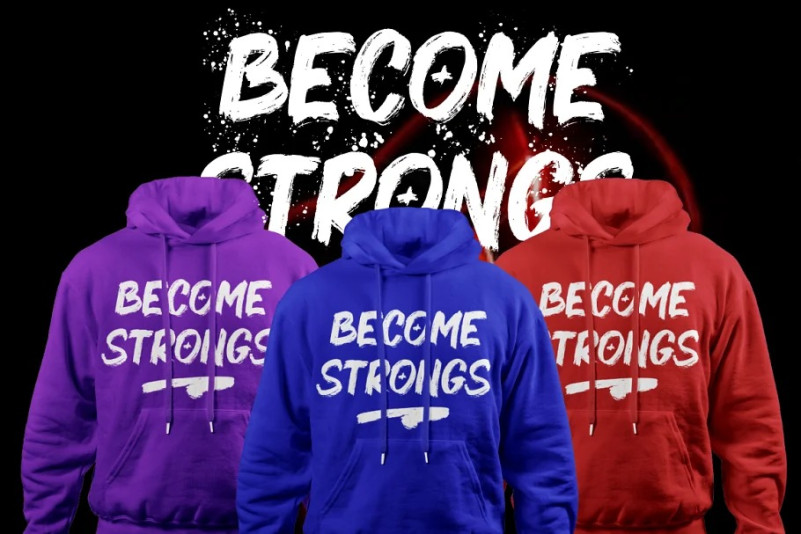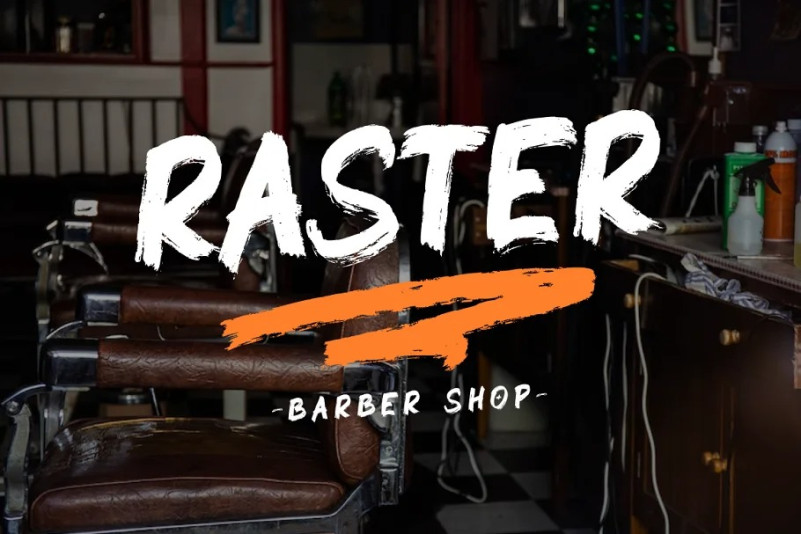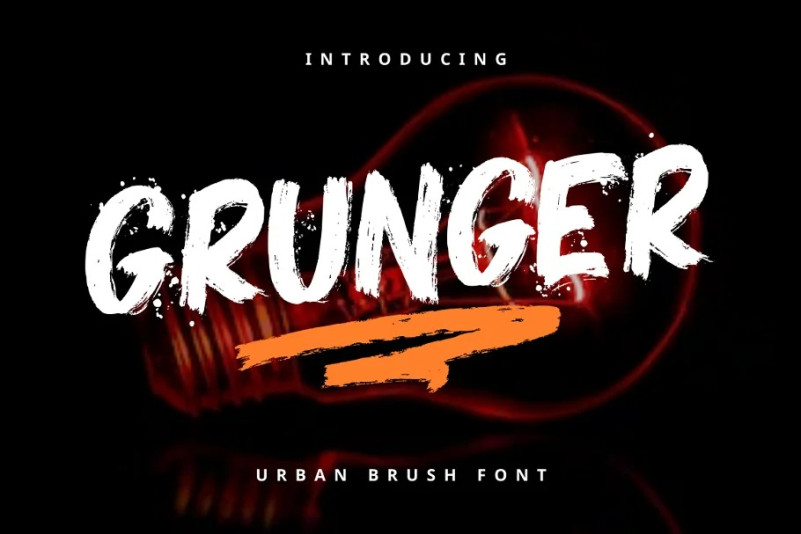
Grunger Font
Grunger Display font is a font created with dry brush strokes with natural handwriting and is suitable for your various design needs, for example apparel, logos and branding, brochures, event posters etc.